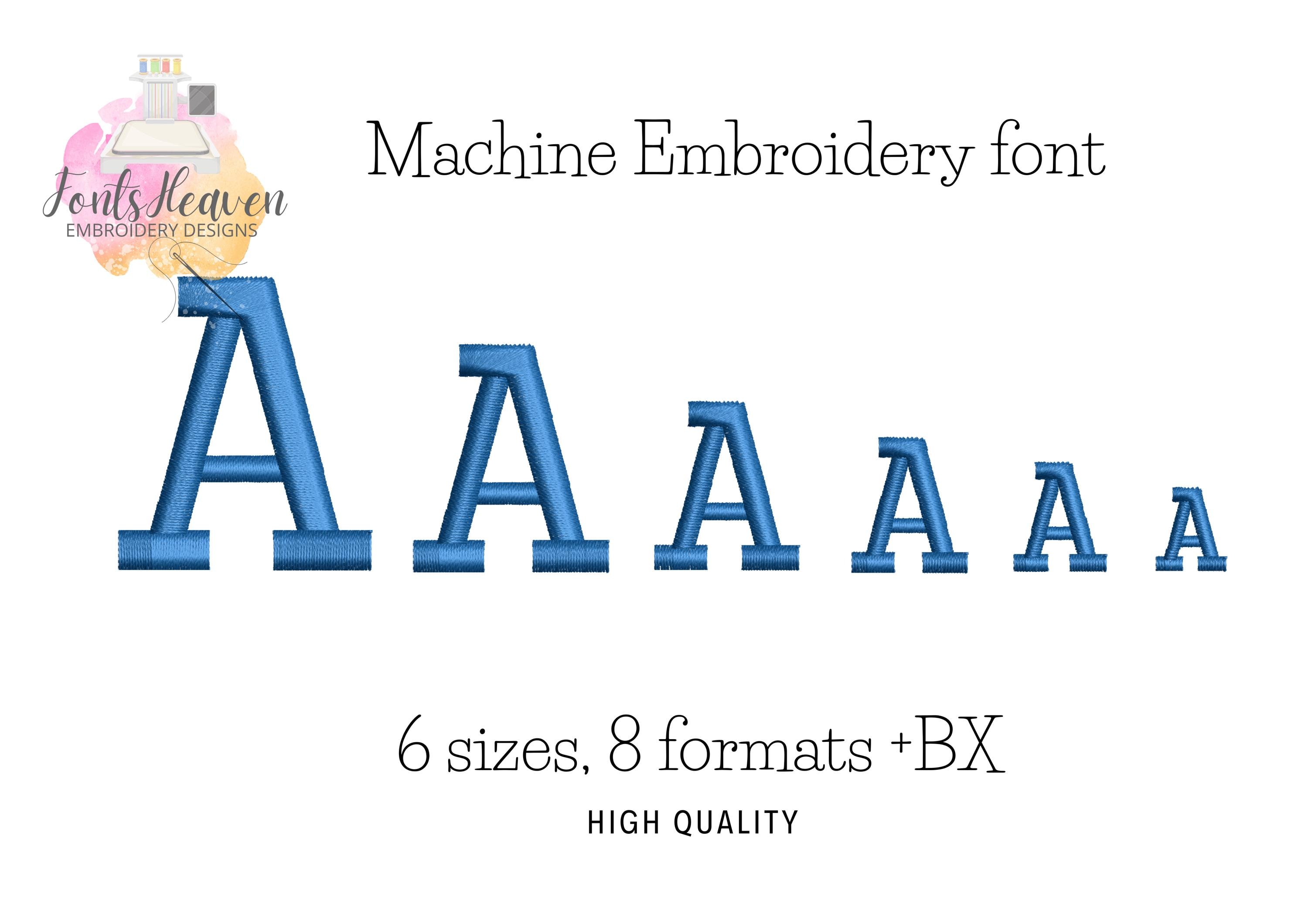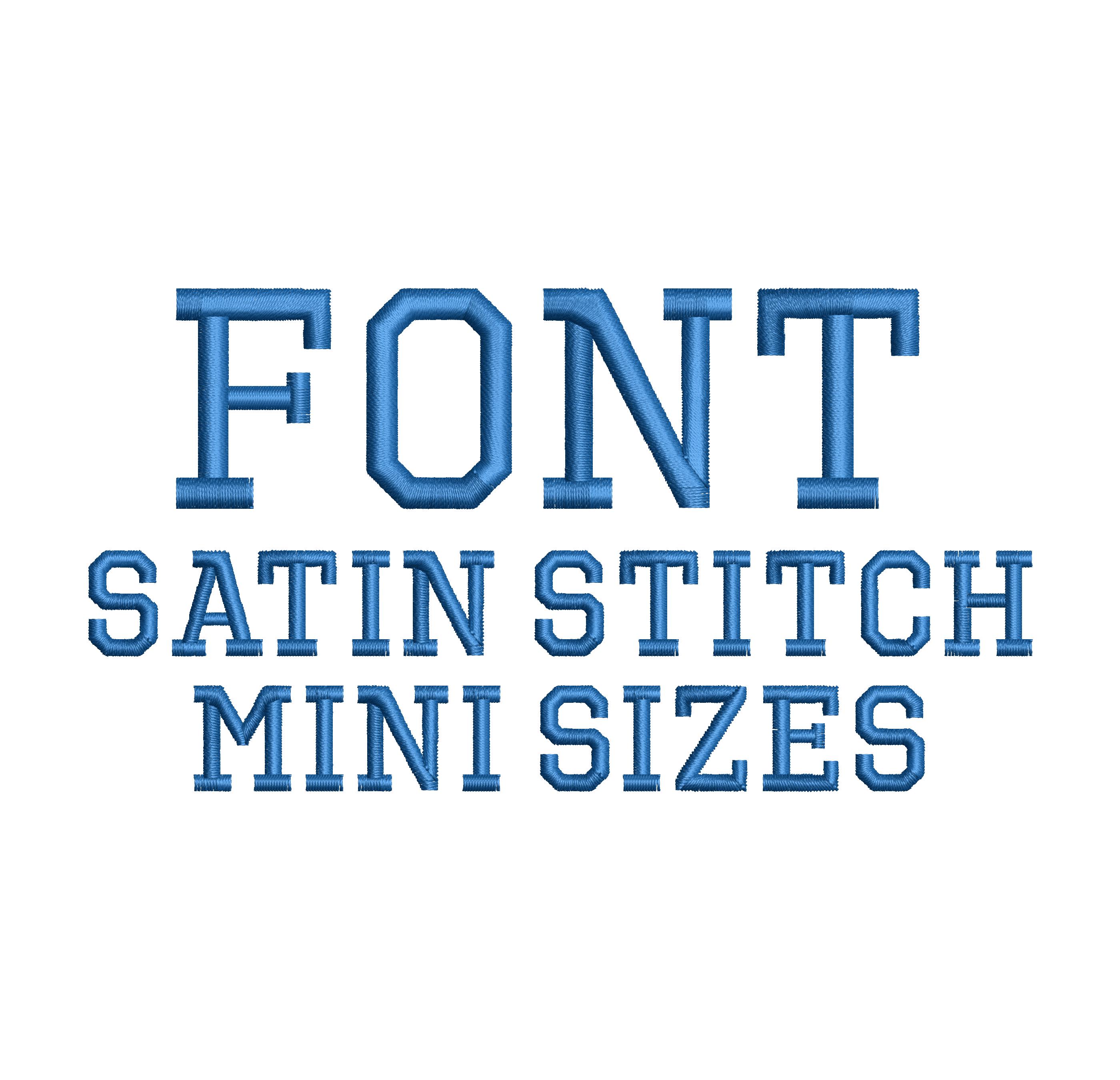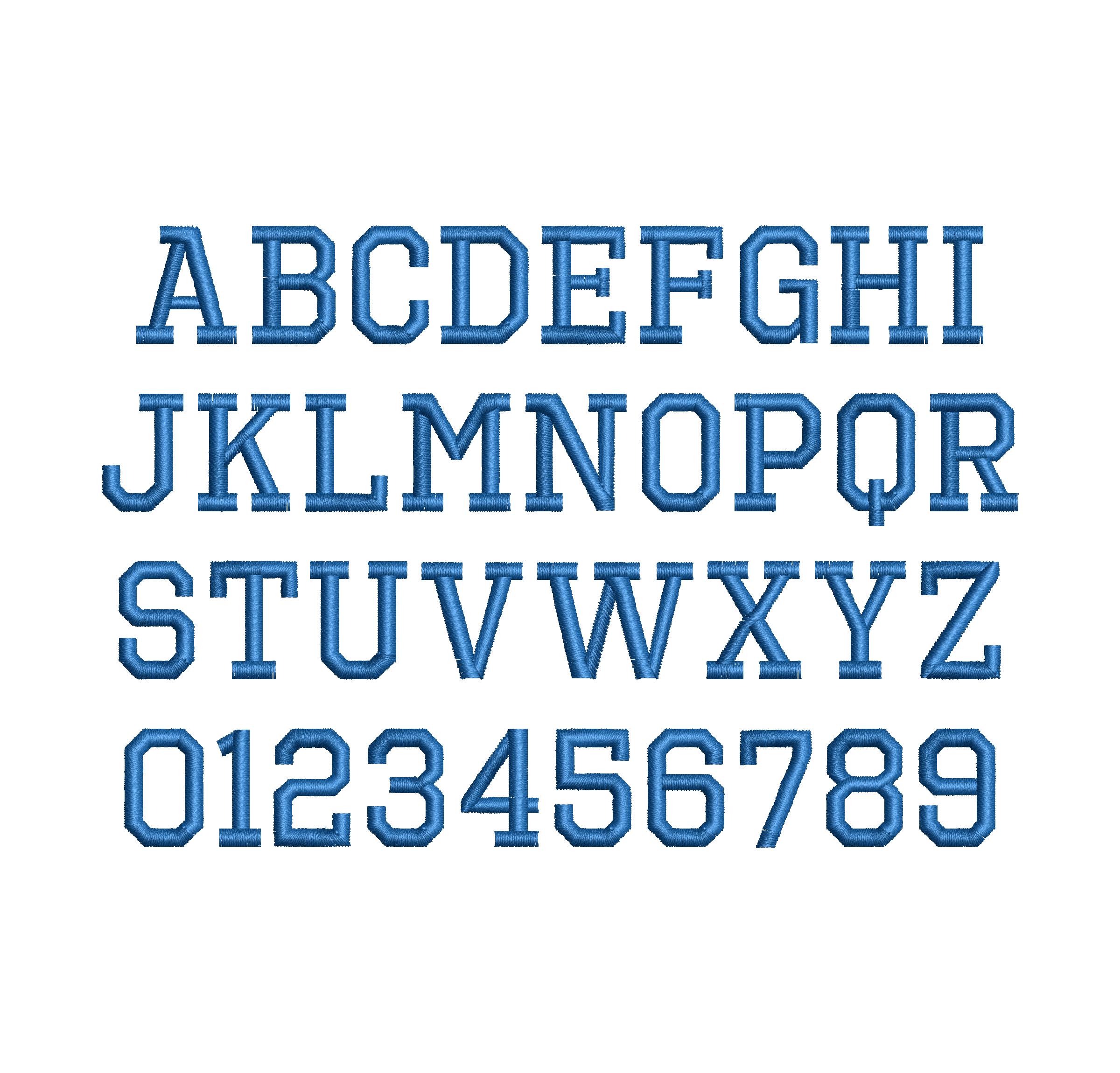
Sport Collegiate Athletic MINI Font machine embroidery designs satin stitch alphabet monogram block font mini sizes 0.5 up to 1.6 inch
0.5 inch
0.6 inch
0.8 inch
1.3 inches
1.6 inches
Entire alphabet uppercase letters A-Z, and numbers 0-9.